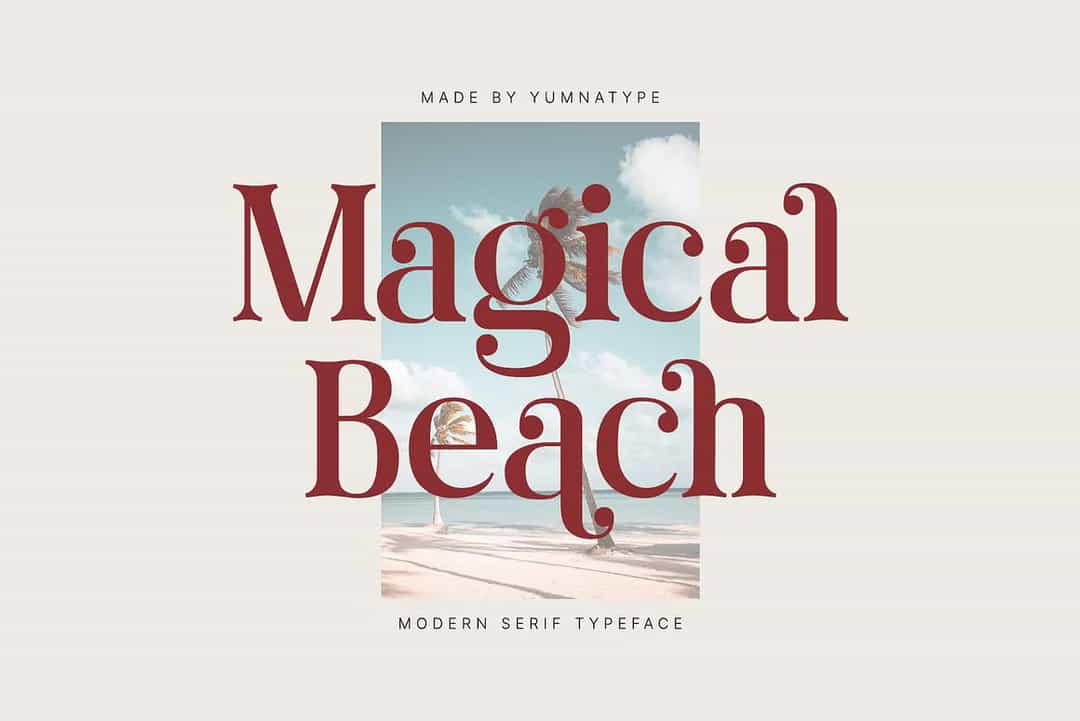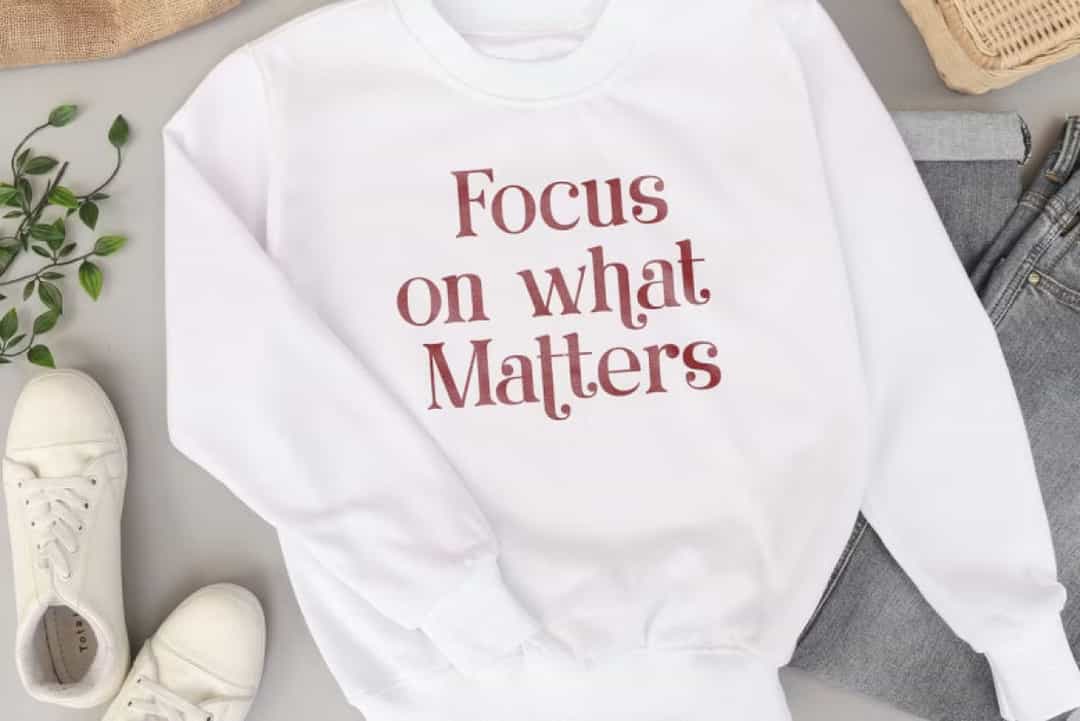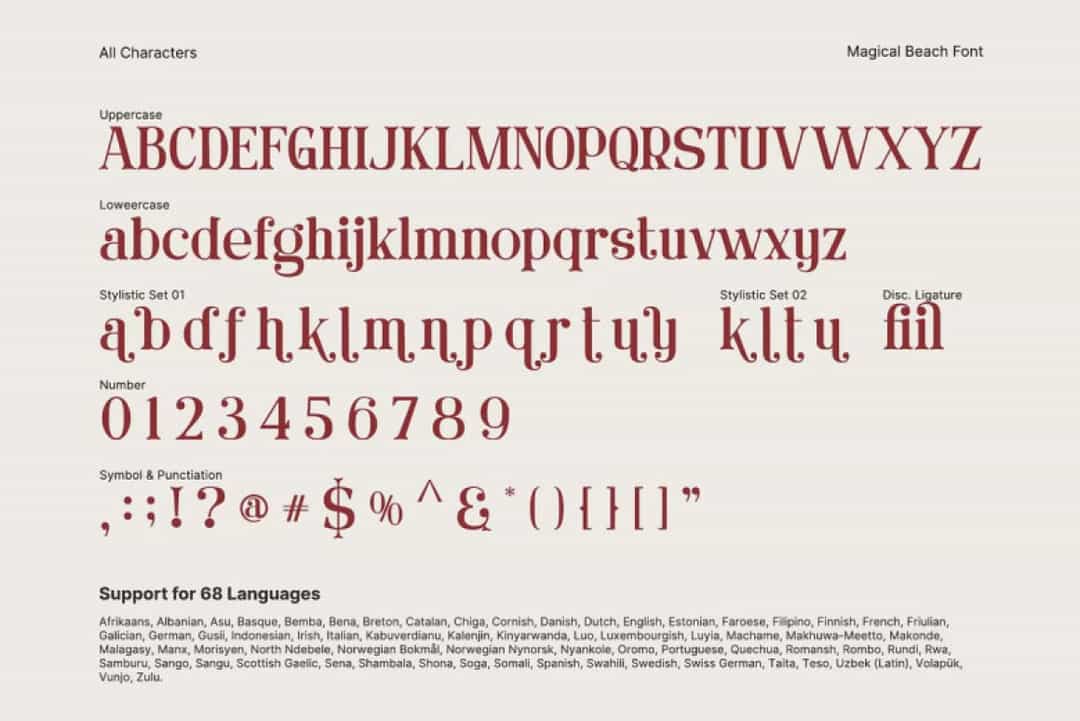
Magical Beach is an enthralling serif font that transports you to a contemporary paradise’s spectacular beaches. Drawing inspiration from natural coastlines and classic serif typefaces, Magical Beach strikes the ideal balance between innovation and tradition with every letter carefully crafted with clear lines and delicate curves to exude class and elegance.